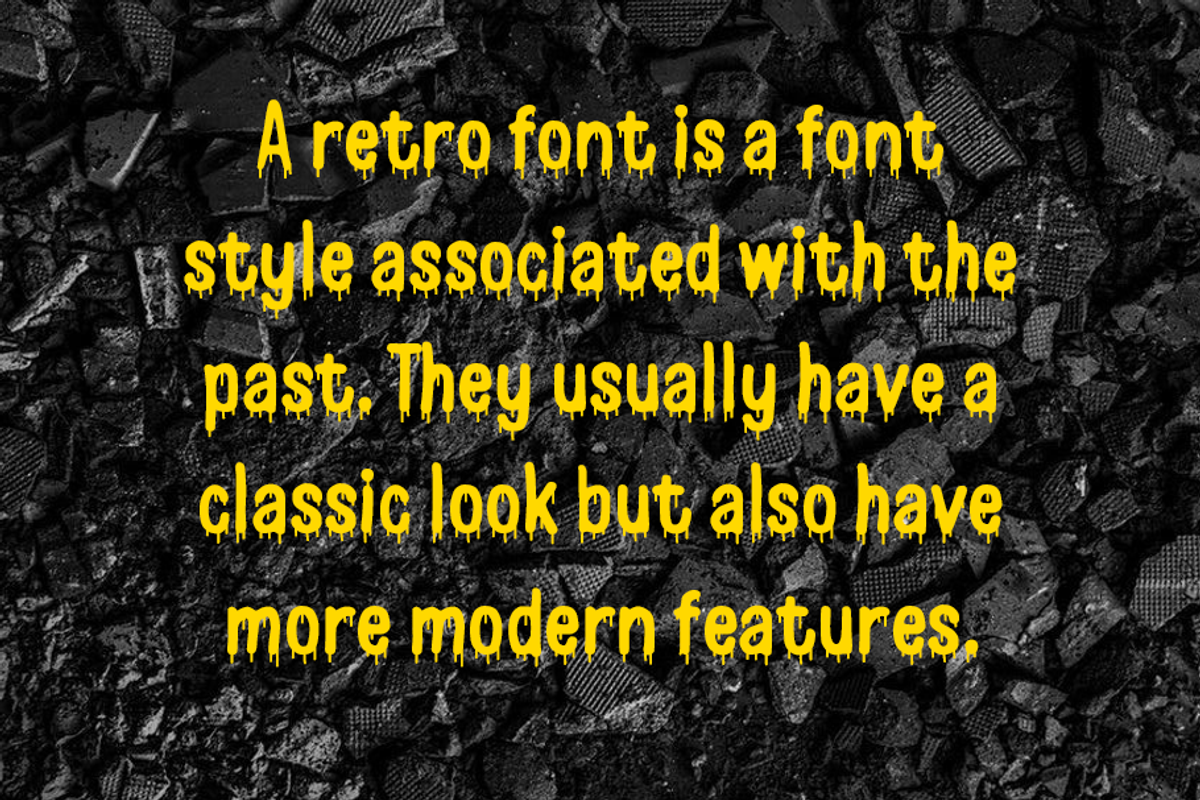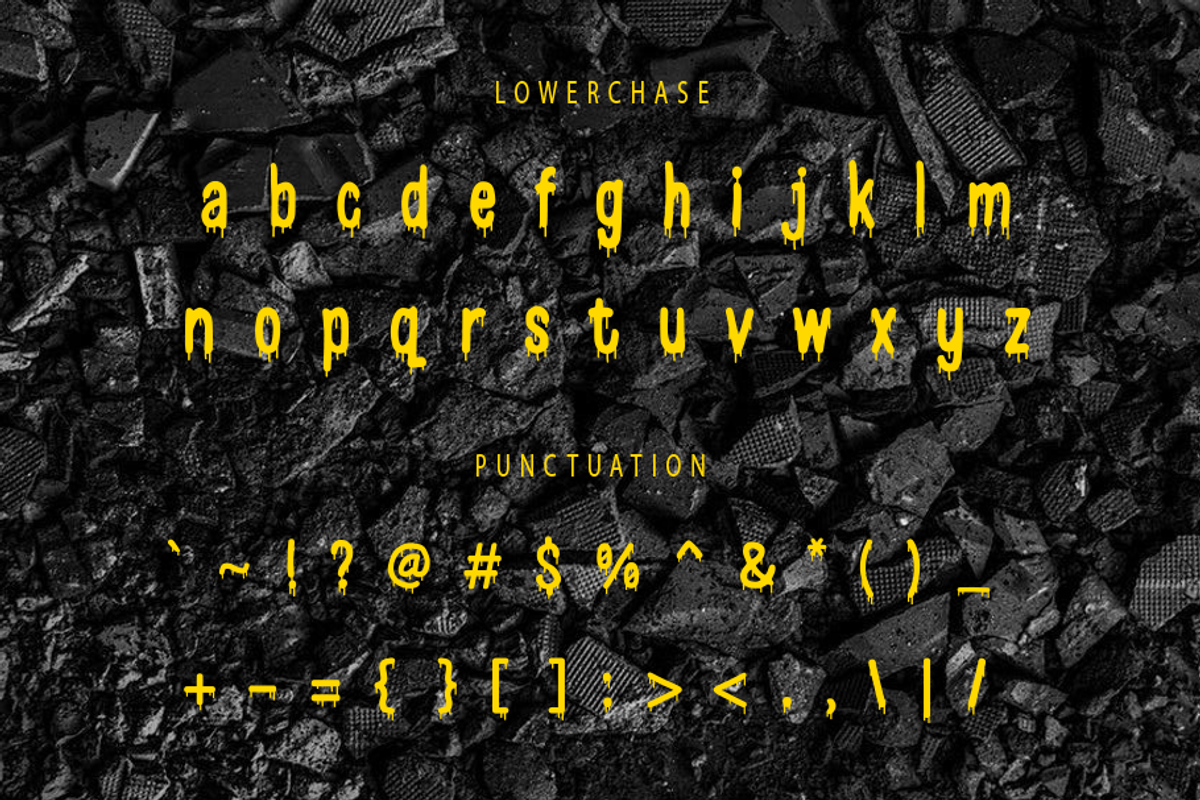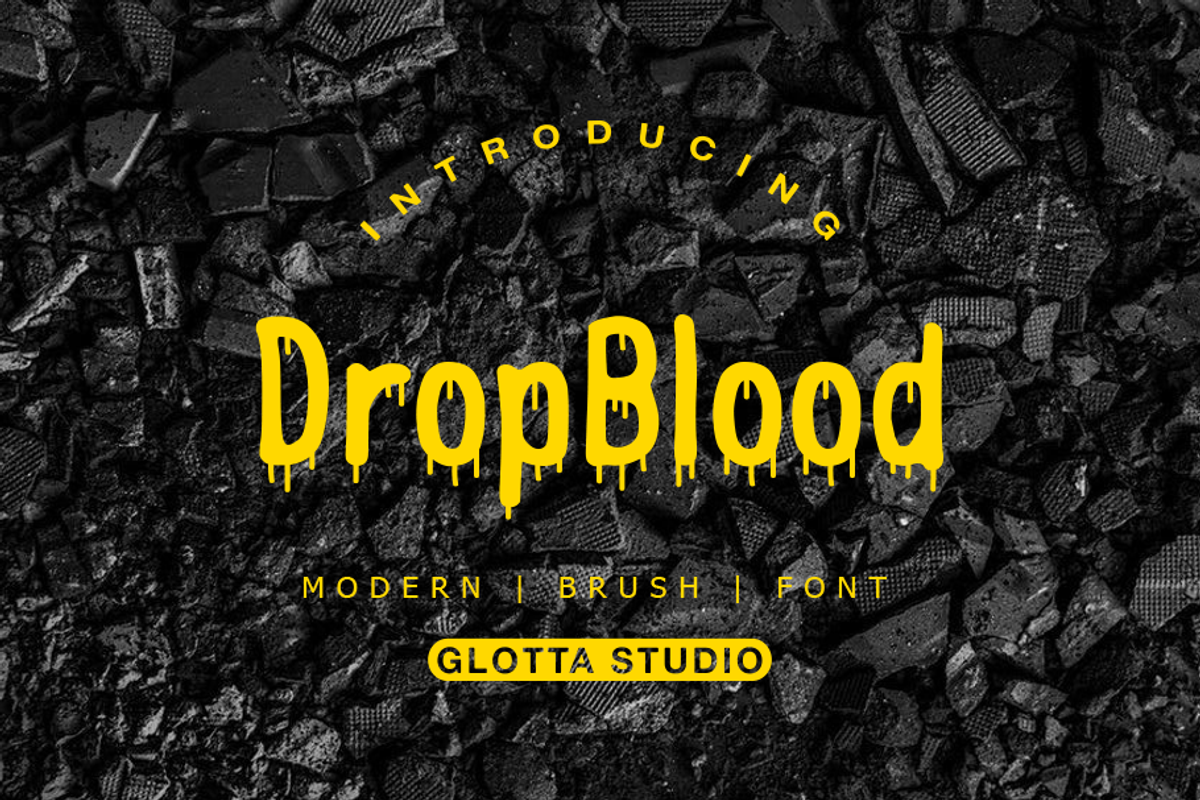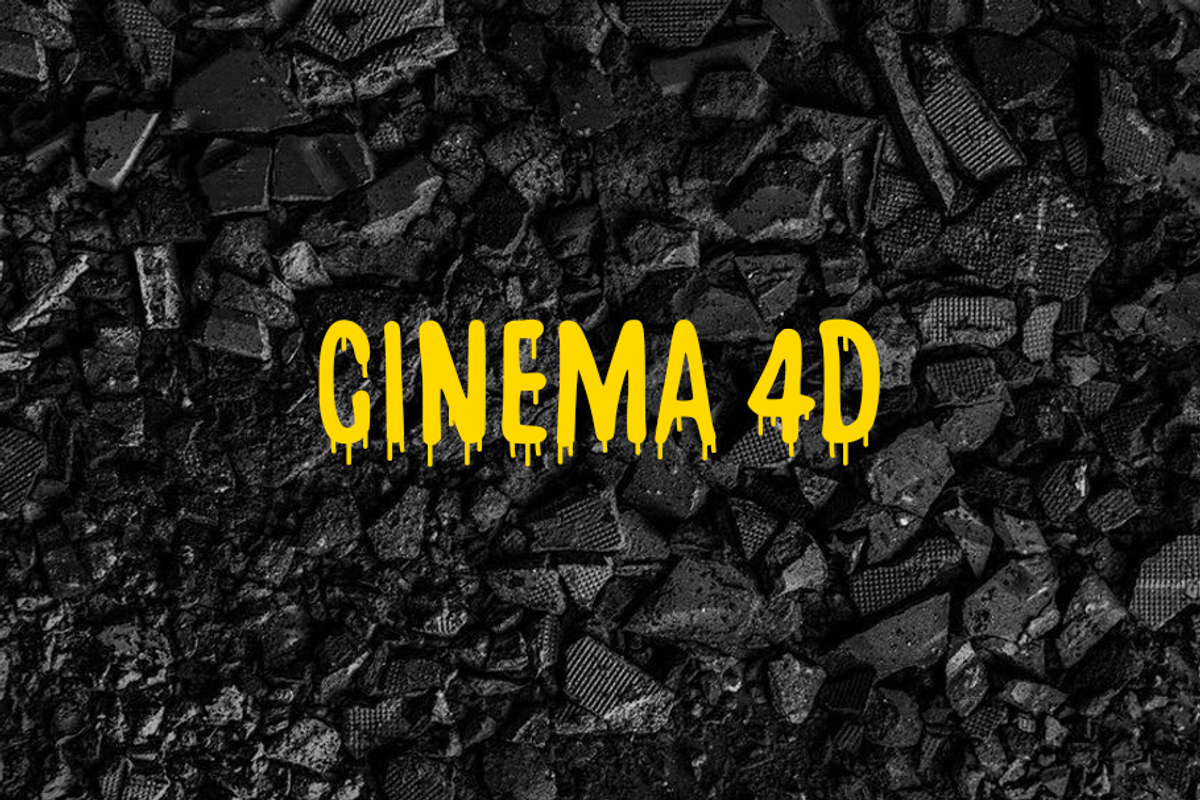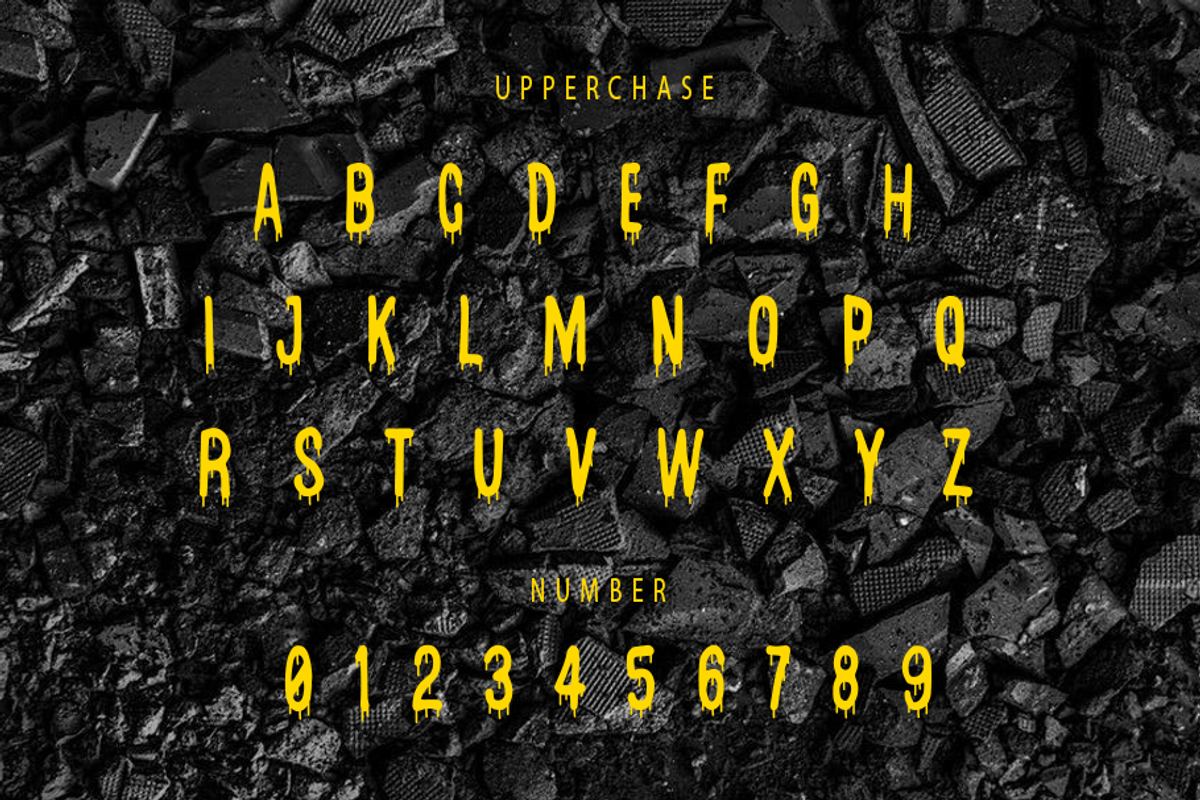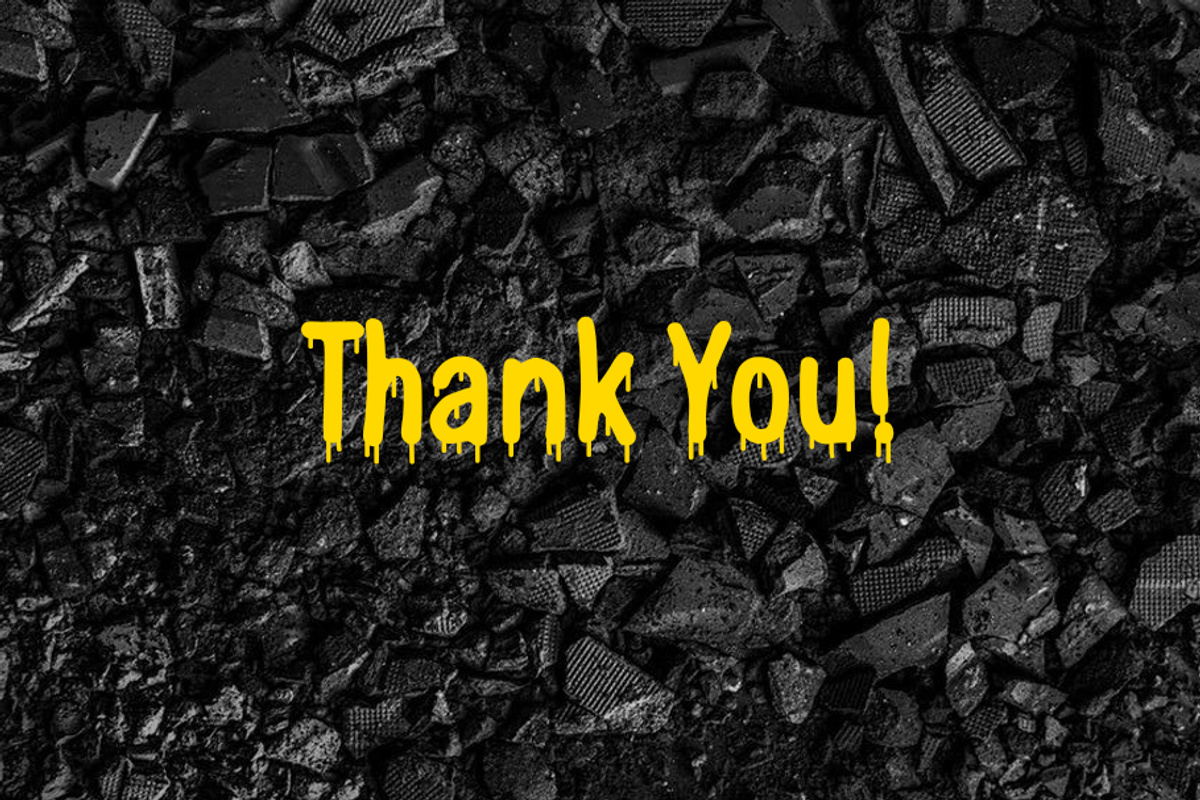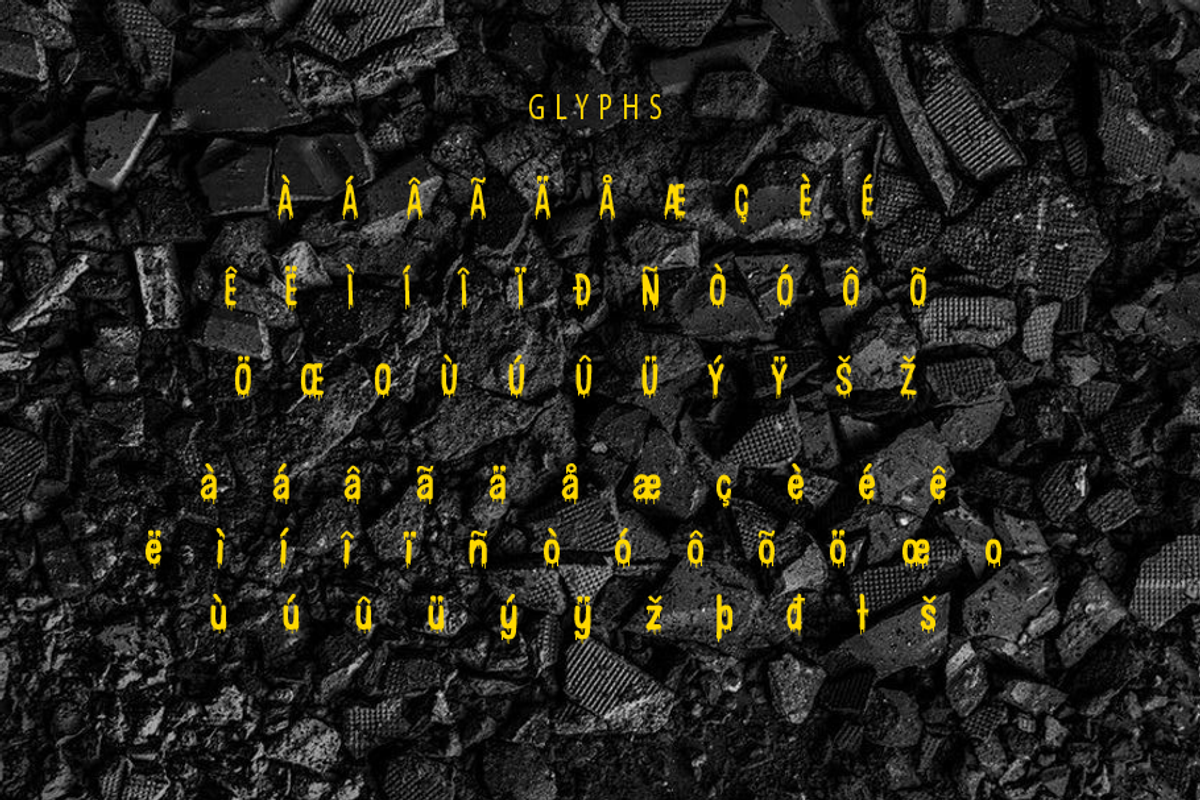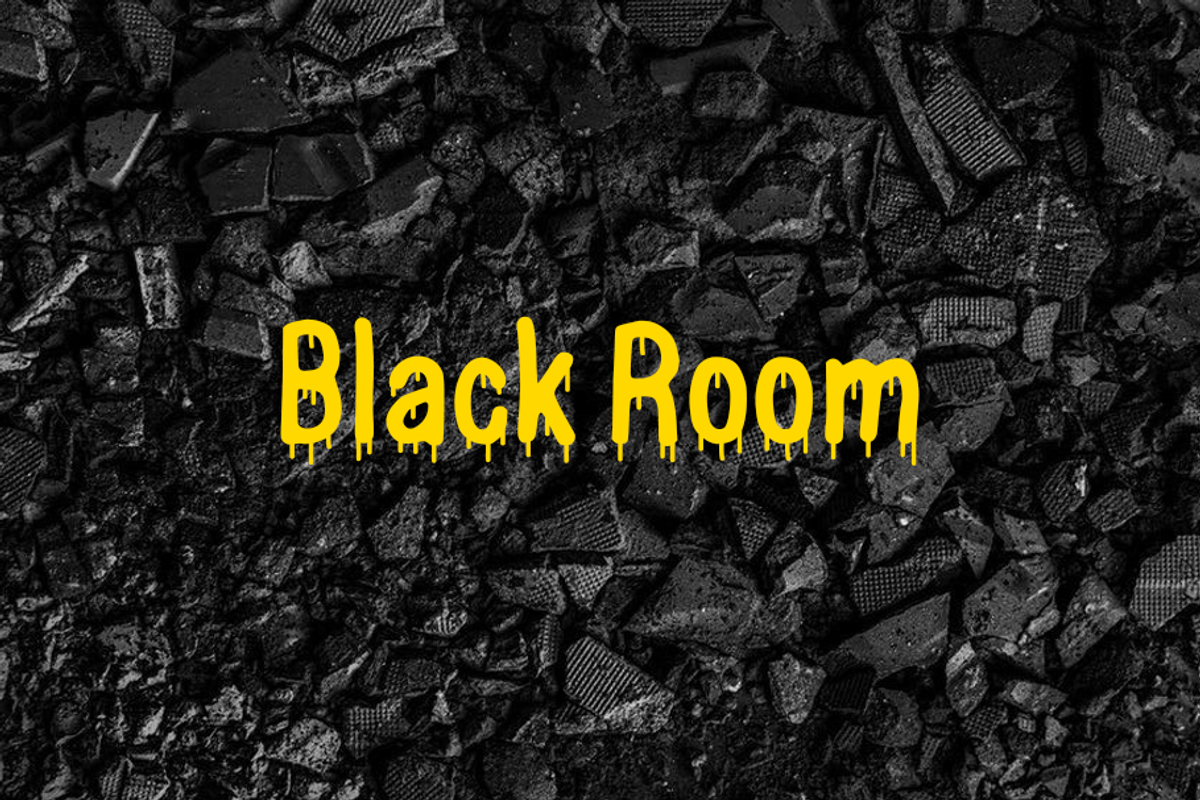
DropBlood
Dropblood is brush font it’s looks olds school, horror and easy to use. Dropblood is the great choice for watermark on movie industry, poster design, quotes, album cover, business card and many other design project. Dropblood is here to make your work or your business to high level!!! Features
- Numerical and Functional
- Other Glyphs